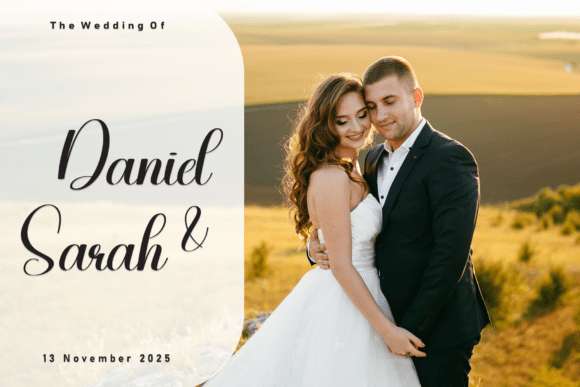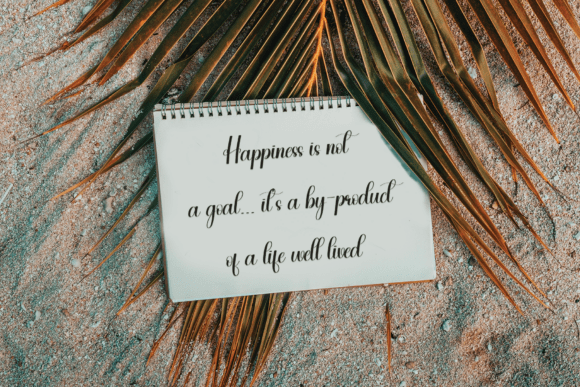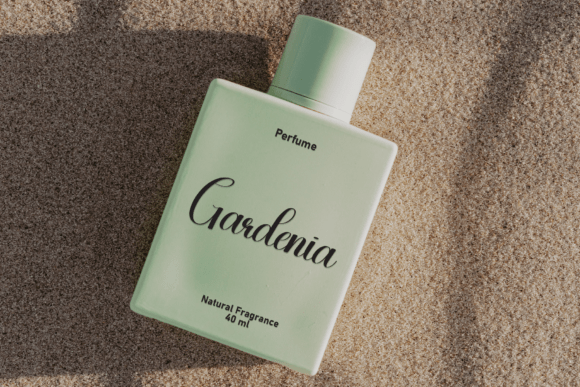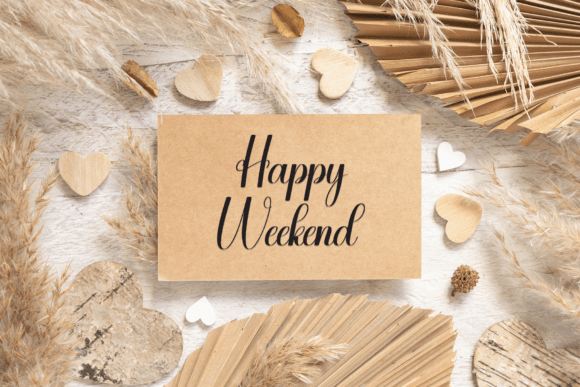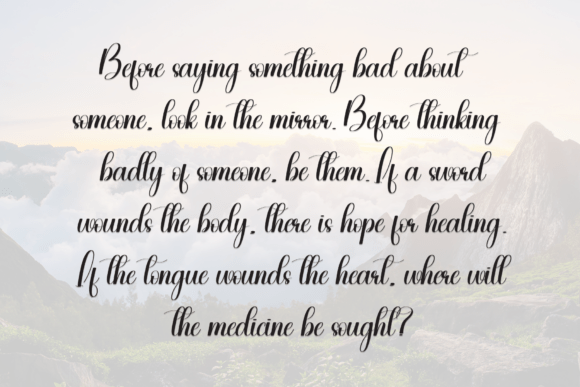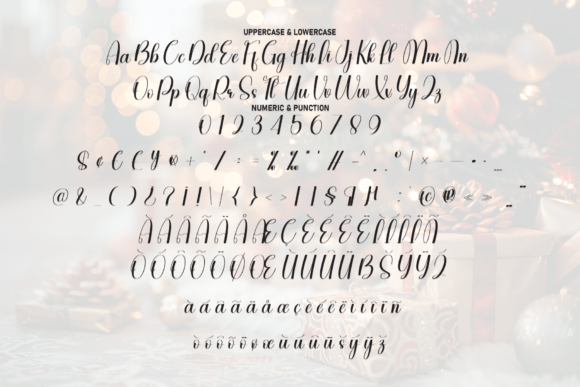
Unwrapping the Magic of Christmas Font: A Designer’s Delight
Ah, the quest for the perfect font – a designer’s eternal struggle! I recall working on a wedding invitation project, determined to create something that would make the happy couple’s special day even more unforgettable. The challenge? Finding a font that exuded joy, whimsy, and romance. That’s when I stumbled upon the enchanting Christmas Font, a handcrafted script font that effortlessly blends charm and creativity.
As I dove deeper into the world of Christmas Font, I discovered a treasure trove of delightful features that make it perfect for wedding invitations, greeting cards, and other creative projects. Here’s what I’m obsessed with:
- ✨ Unique Character Set: The font boasts an extensive range of characters, including ligatures, swashes, and stylistic alternates, ensuring your designs stand out from the crowd.
- ✅ Ease of Use: The font is incredibly easy to work with, even for those new to using OpenType features and glyphs.
- 💕 Emotional Connection: The font’s playful, handcrafted feel evokes a sense of warmth and personality, making it perfect for projects that require a personal touch.
Of course, no font is perfect, and Christmas Font has a few minor quirks:
- 🤔 Kerning Issues: As with any script font, some users may experience kerning issues, particularly when using certain character combinations.
- ⚠️ Limited Use in Formal Contexts: Due to its playful nature, Christmas Font might not be the best fit for formal or corporate designs.
The Story Behind Christmas Font: Designer Inspiration
Imagine a snowy winter evening, surrounded by twinkling lights, hot cocoa, and the sound of laughter. This is where Christmas Font was born – from a designer’s desire to capture the magic of the holiday season and infuse it into a typography masterpiece. With a focus on playfulness, joy, and creativity, Christmas Font was meticulously crafted to bring a smile to your face and inspire your designs.
| Font Name | Christmas Font |
| What makes Christmas Font unique? | Its extensive character set, including ligatures, swashes, and stylistic alternates, sets it apart from other script fonts. |
| Is Christmas Font suitable for body text? | While Christmas Font is beautiful, it’s best suited for headlines, titles, or short paragraphs due to its script nature and potential readability limitations. |